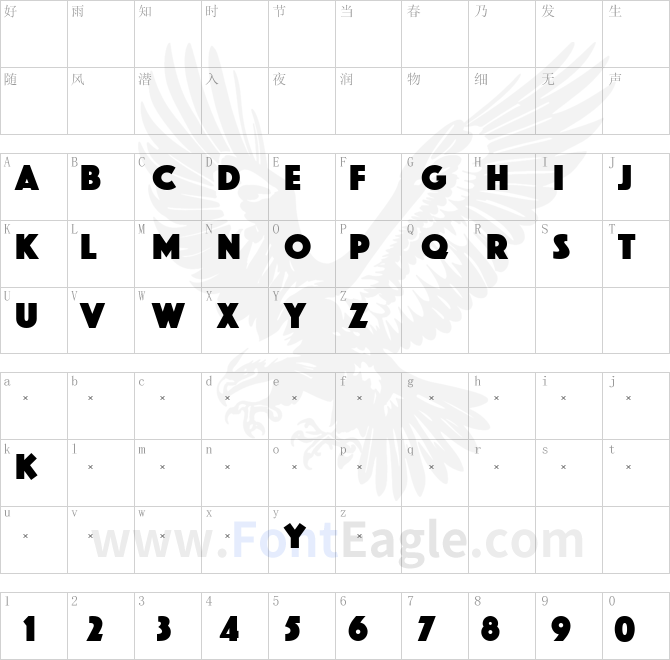
- Font name:PhosphateSolid
PhosphateSolid is a great font, widely used in graphic design, single-page menu design, poster design and other fields, and is deeply loved by designers.PhosphateSolid download.